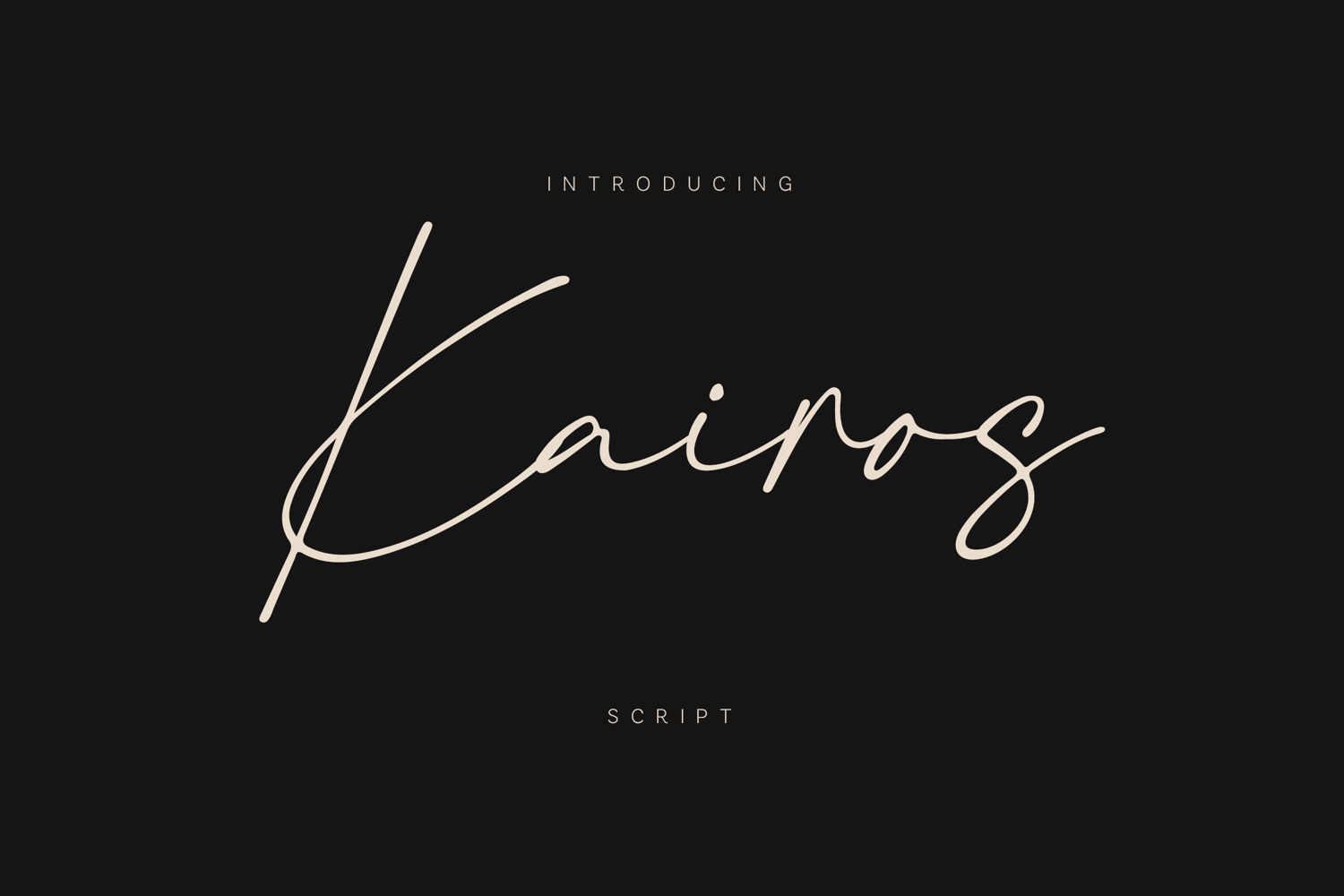
Kairos Modern Handwritten Signature Font
Kairos is a refined handwritten script designed to capture the natural elegance of a real signature. With smooth flowing strokes and delicate curves, this font delivers an authentic handwritten feel while remaining clean, modern, and highly readable.
The balanced letterforms and fluid connections create a sophisticated rhythm that works beautifully across many creative projects. Whether used for branding, logos, wedding invitations, packaging, fashion editorials, social media graphics, or signatures, Kairos adds a luxurious and touch to every design.
Kairos is perfect for designers looking for a modern signature-style script that feels natural, stylish, and timeless.